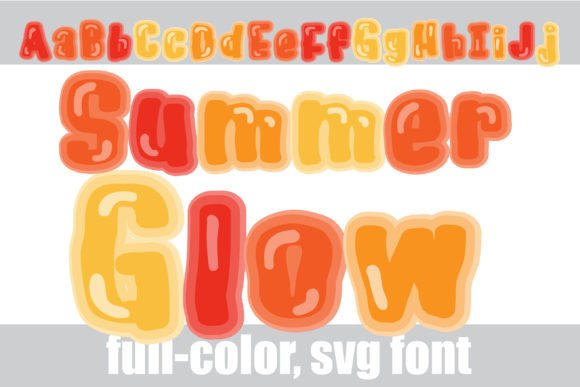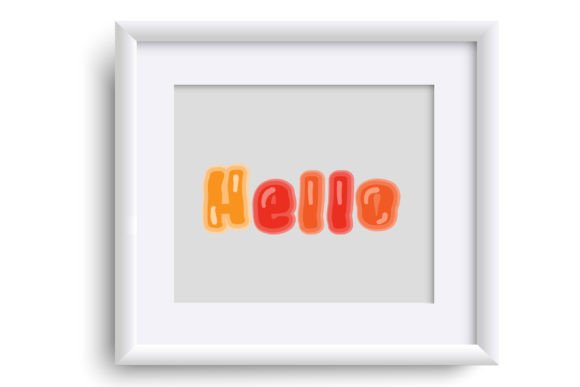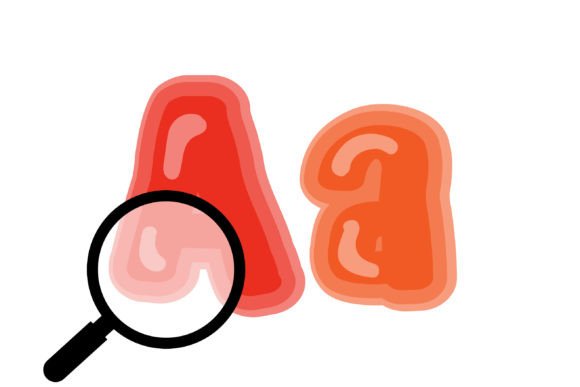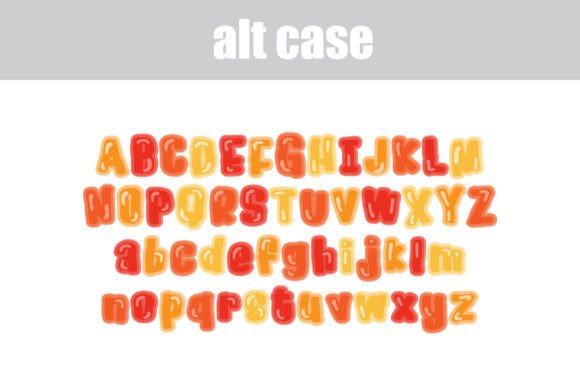
Summer Glow Font
About the Summer Glow Font
We are excited to introduce Summer Glow Font, a must-have typeface for any serious designer. This full-color font features a creative, crafty font in a hot, summer color palette. There is an alt case w/ additional colors you can access through your system or Silhouette’s glyph map. This font works best for titles, displays, posters and more. Please note color fonts will show as black in non compatible programs. This font type is compatible with Silhouette Studio.